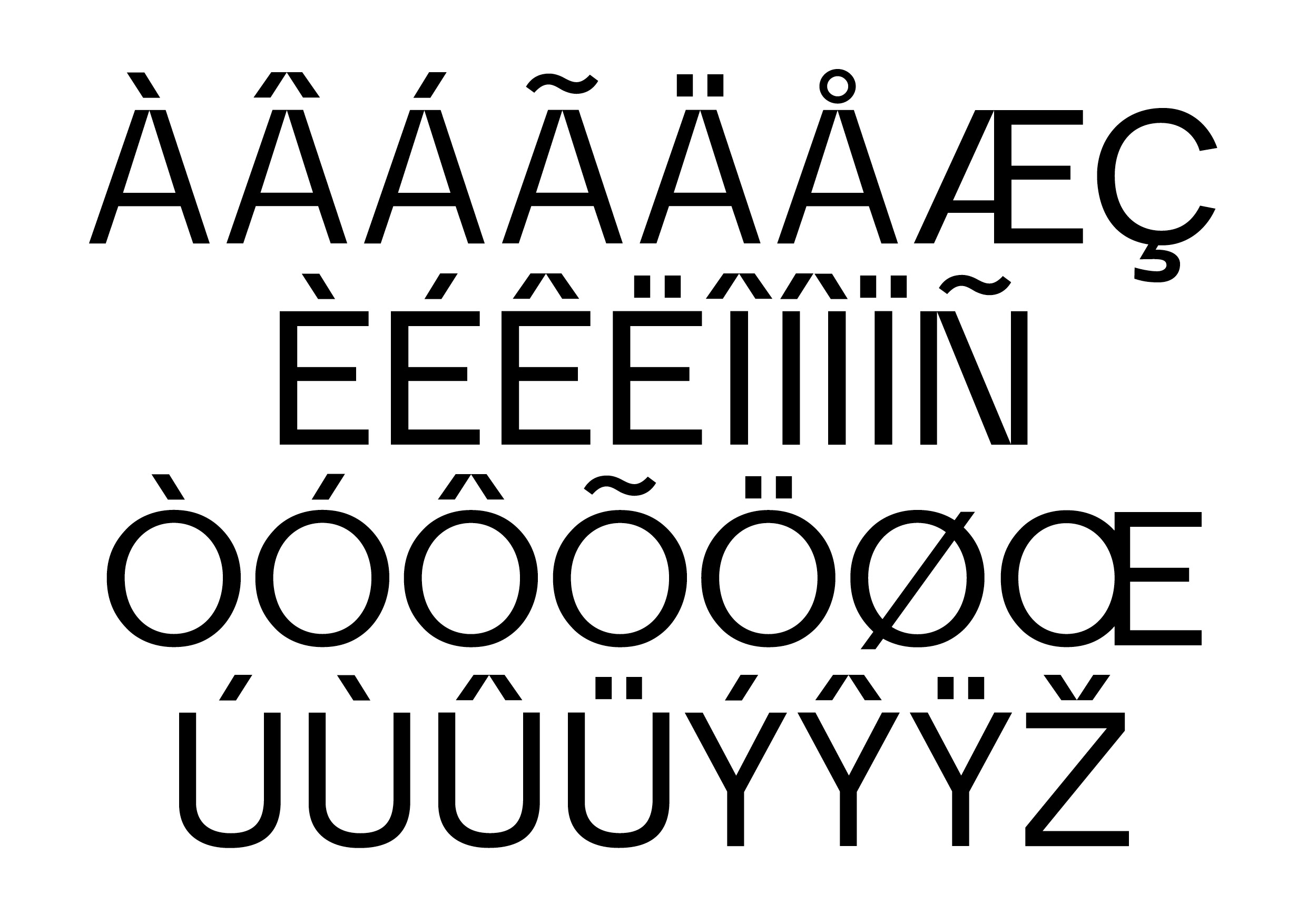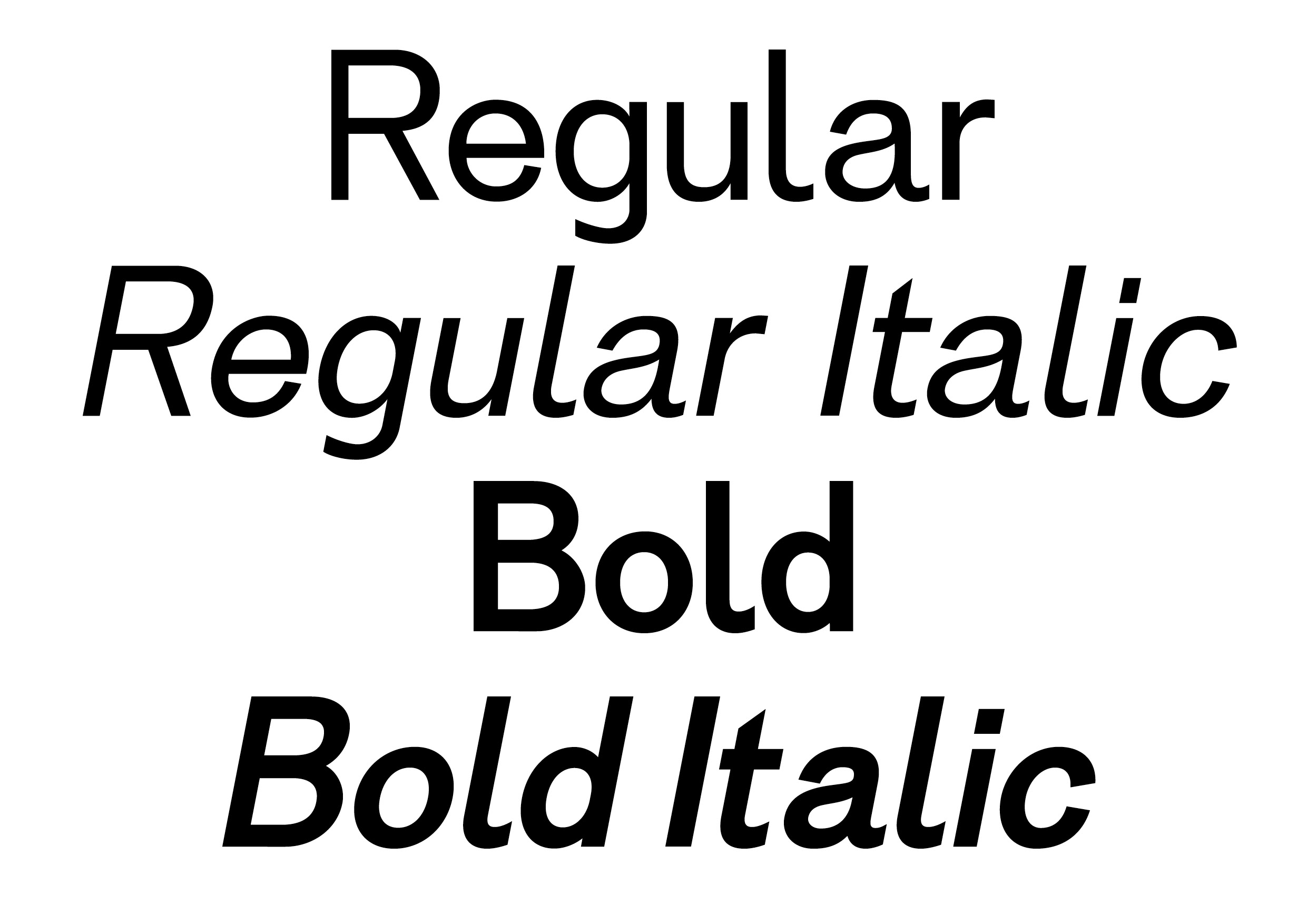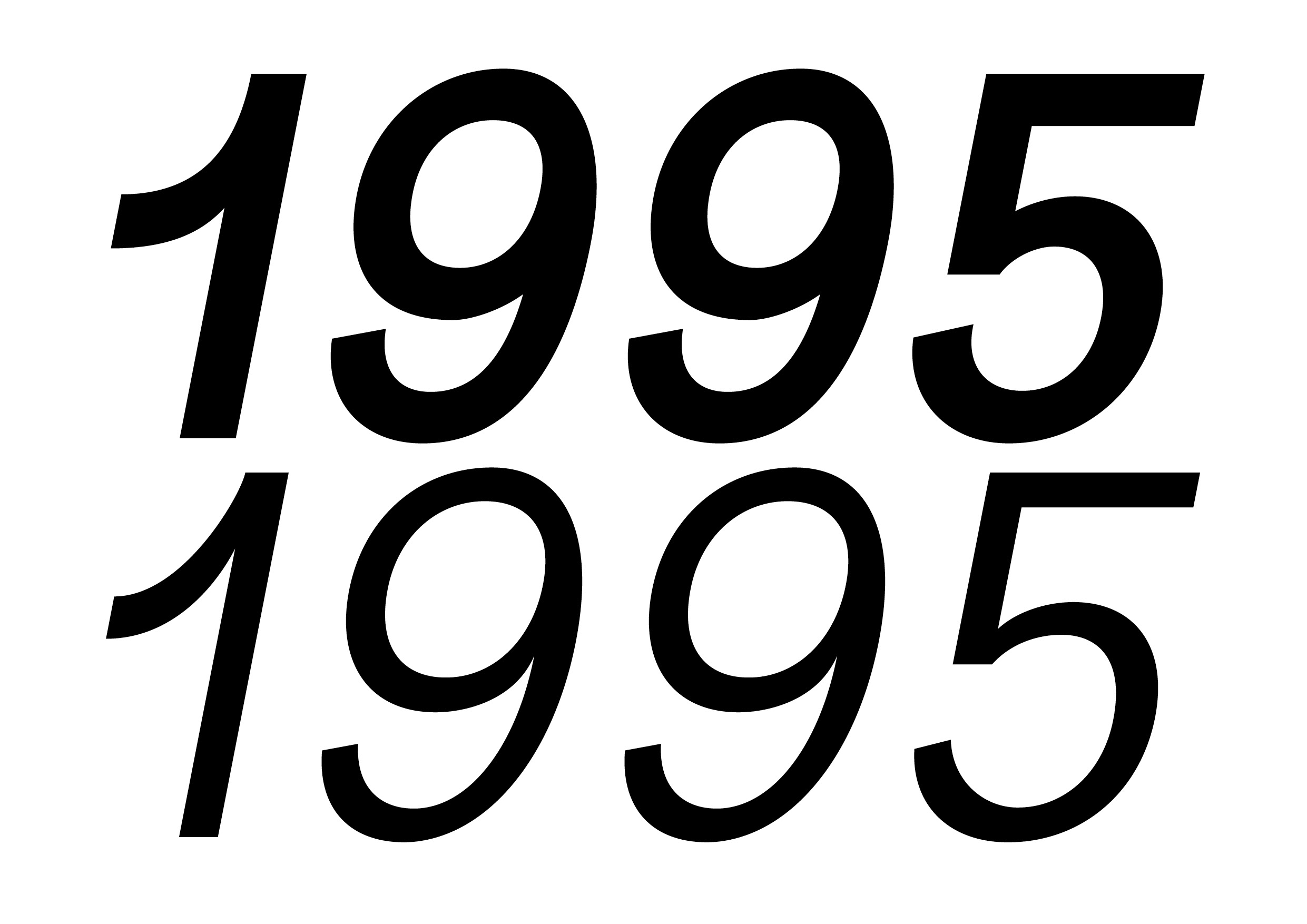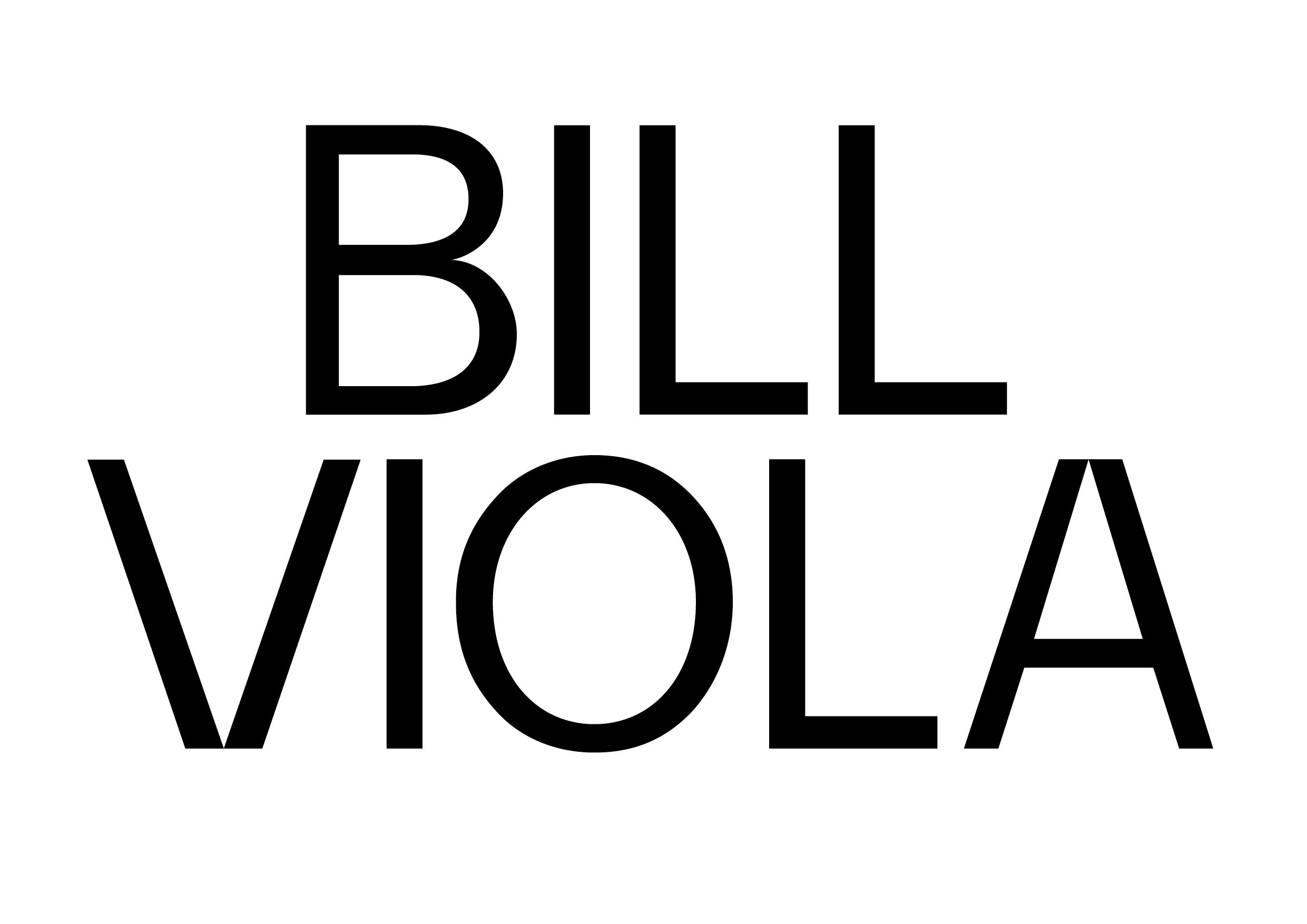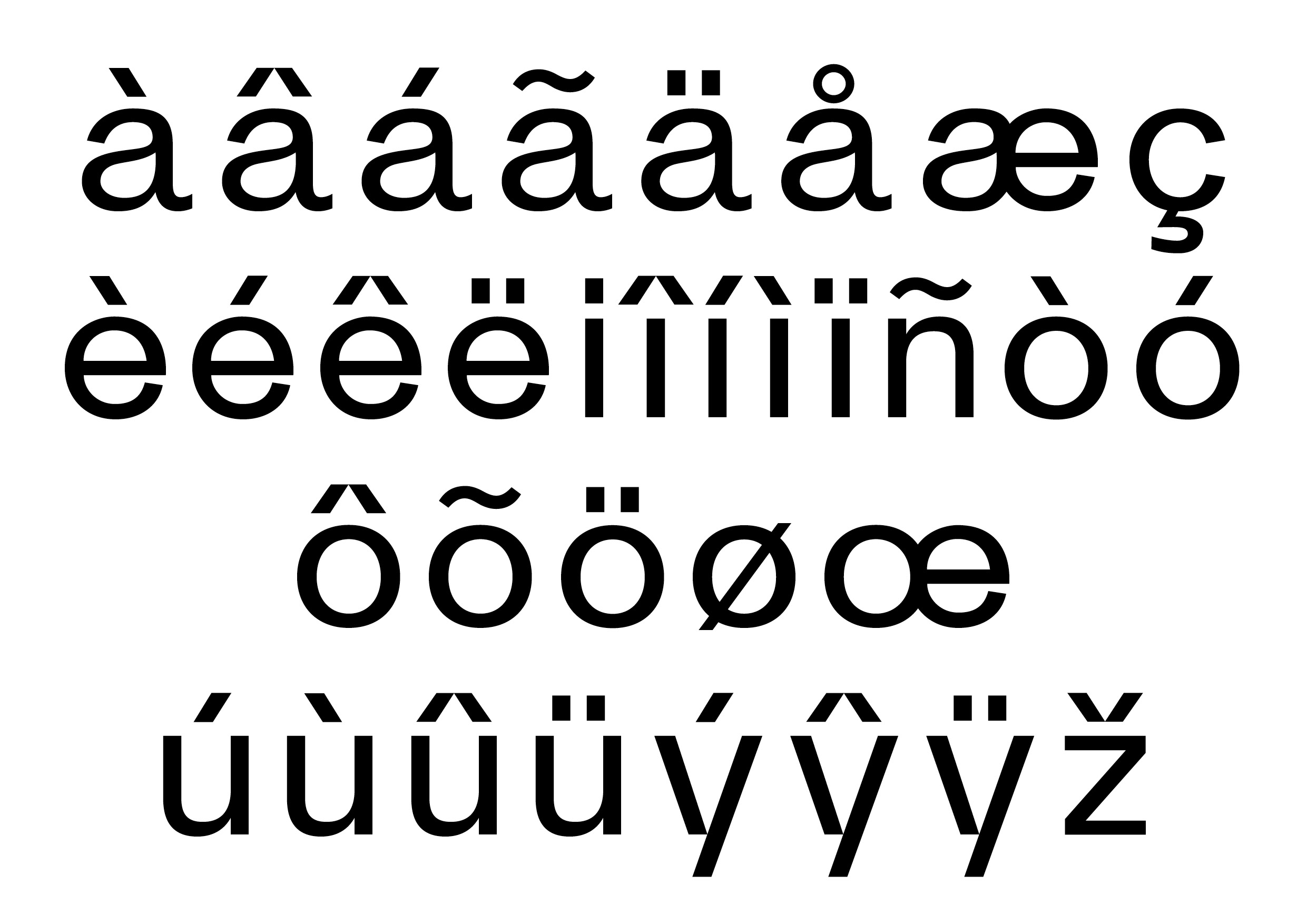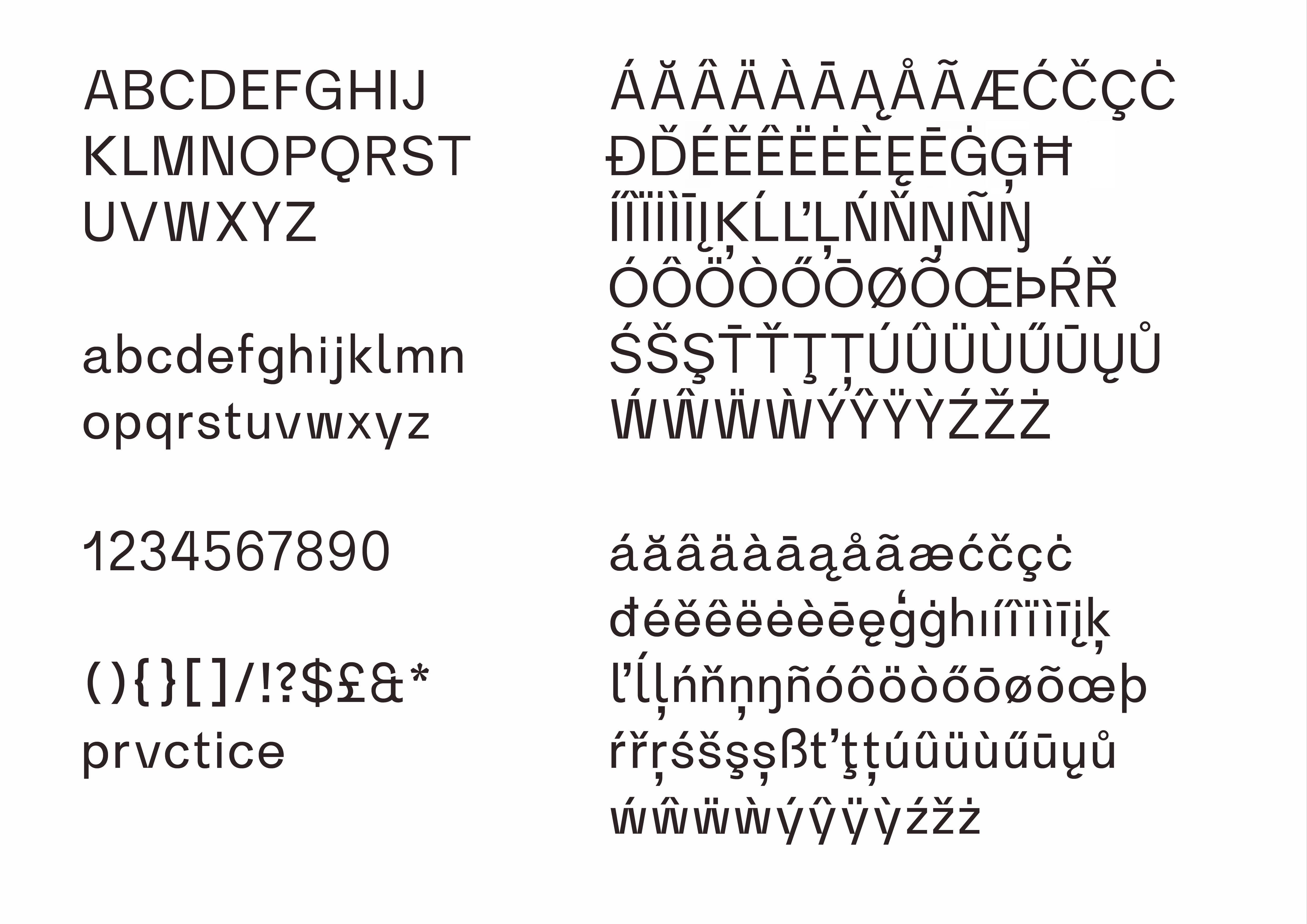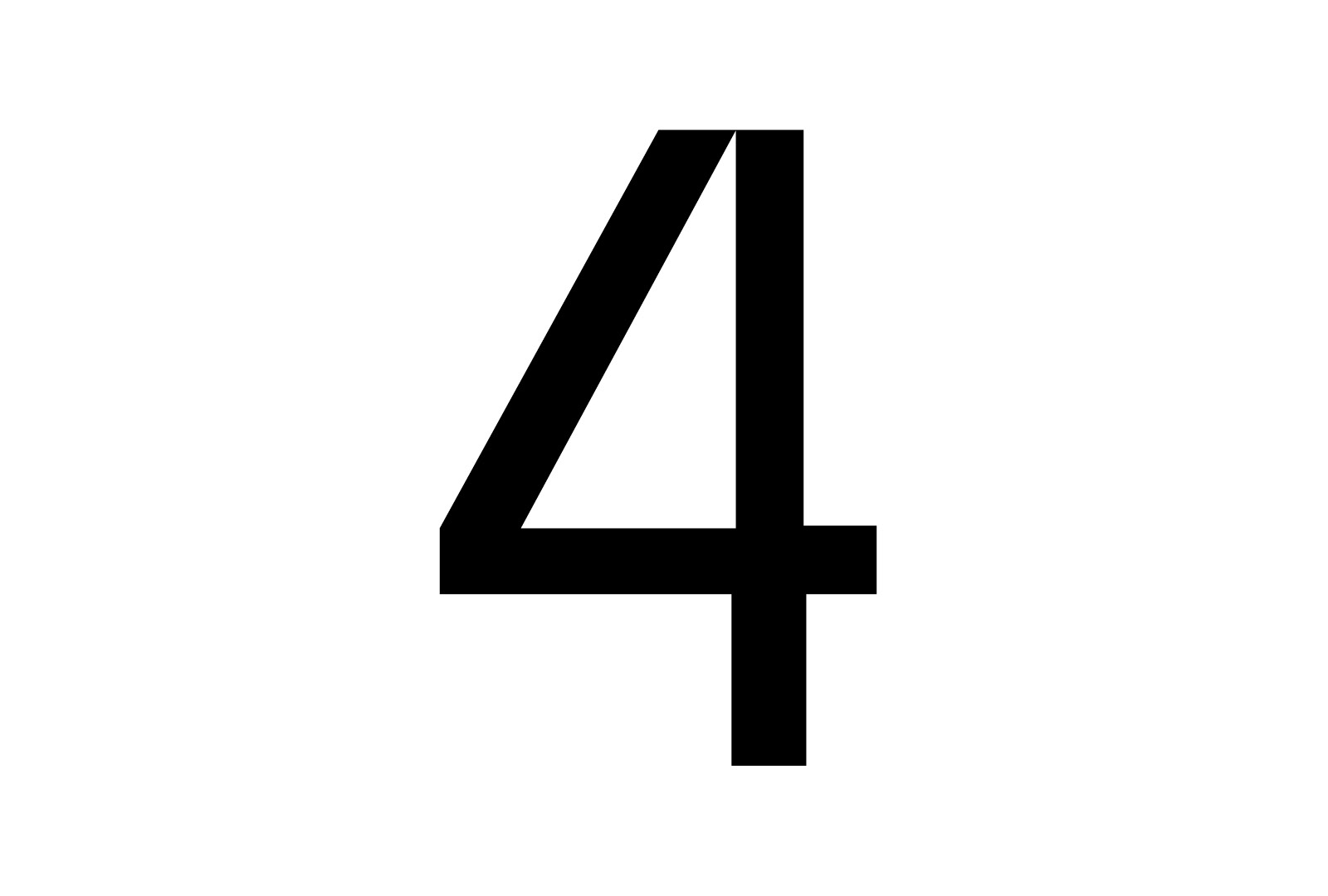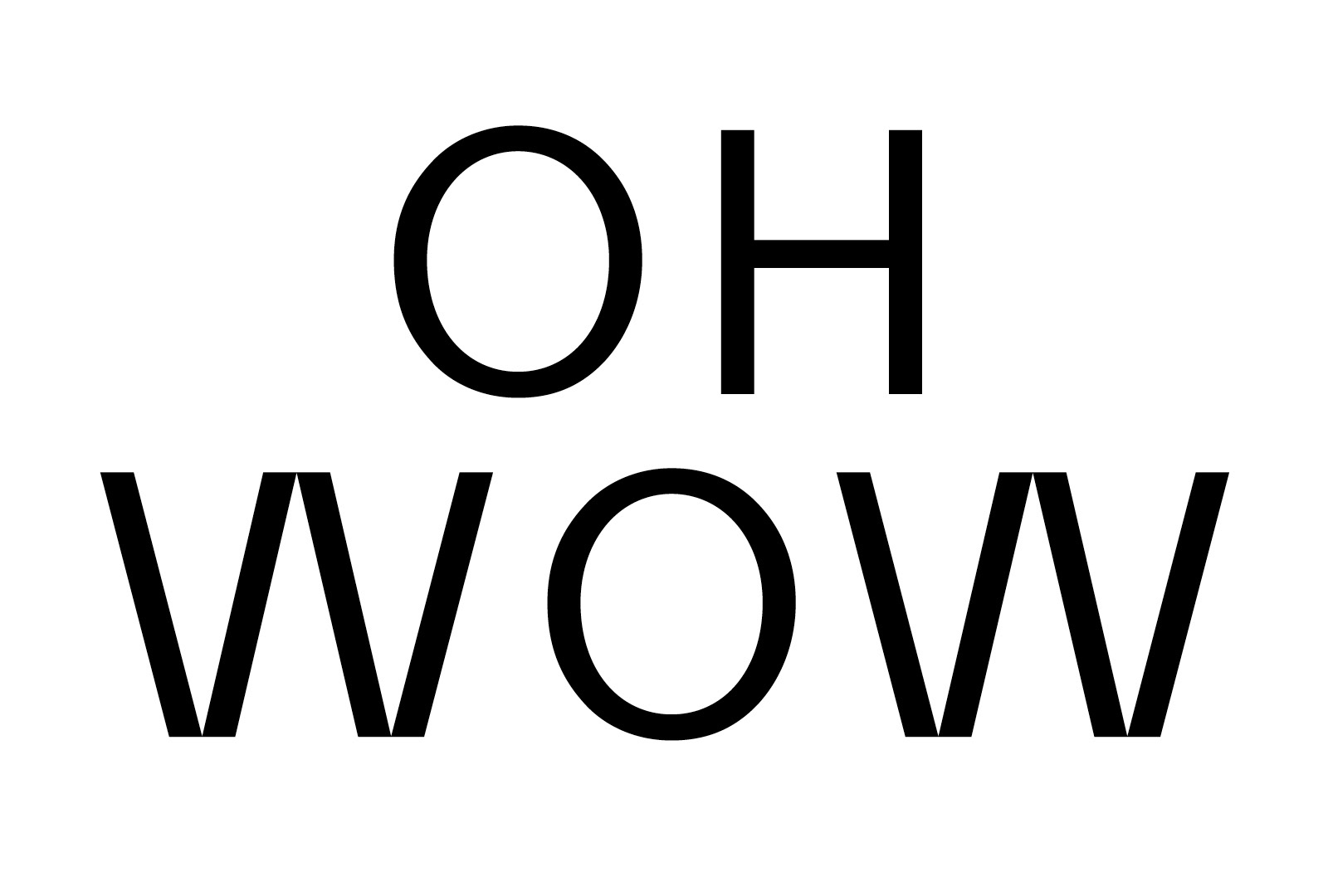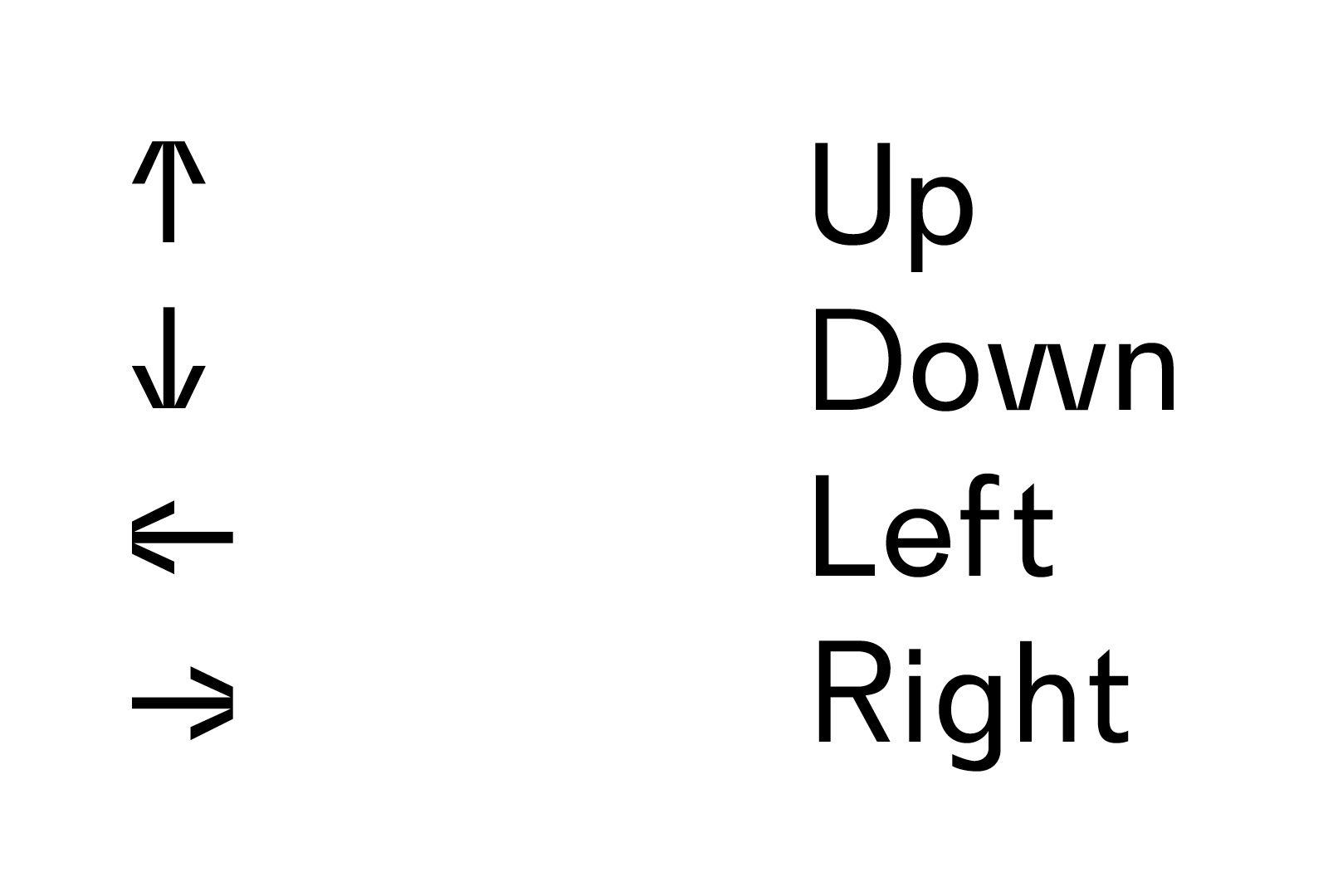
Practice
Nobody sees the first version. Thankfully. Most things worth making involve trying something and then trying it again. You move something. Move it back. Make it bigger. Decide it was better smaller. Eventually something starts to feel right. Practice is interested in that part of making. Its large family gives you room to move between quiet typography and something much louder without having to change the voice completely. It isn't a typeface that asks to be admired from a distance. It was made to be used and pushed around. Try it on a title. Put it through a whole book. Change your mind. That's what practice is for.
Practice Sans specimen